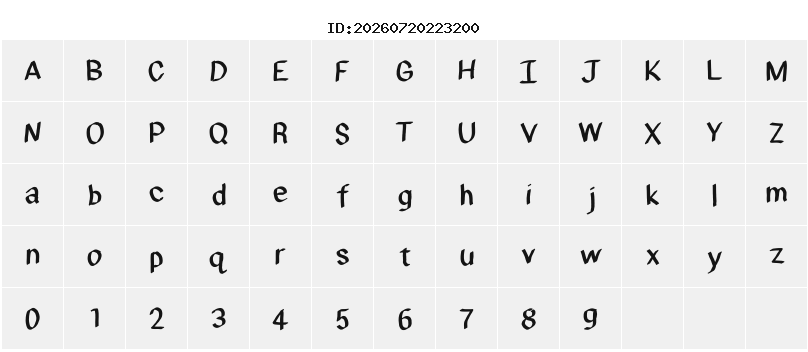
Fombre Preview
• Font Name: Fombre
• Full Font Name: Fombre
About Fombre.ttf
Fombre.ttf is a modern, elegant sans-serif font designed for ultimate readability and visual harmony. Perfect for branding, headlines, web design, and print materials.